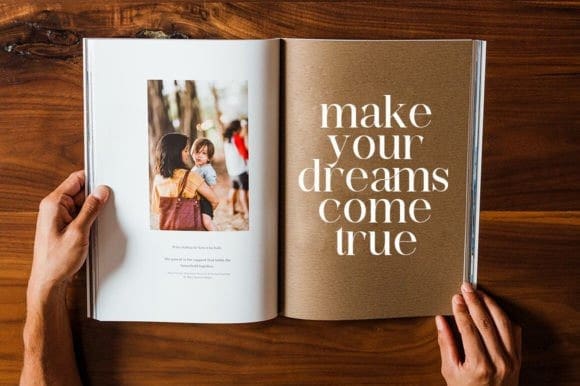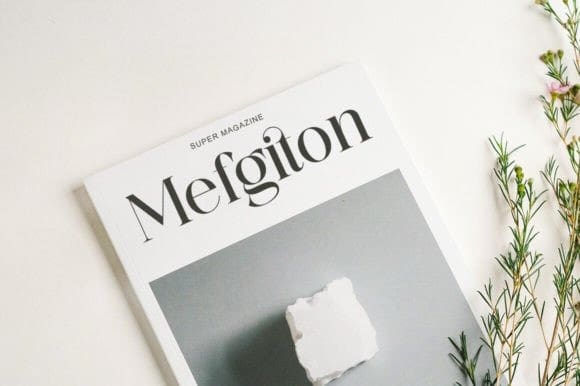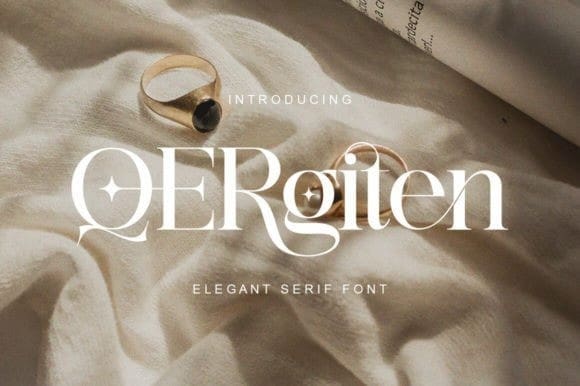
Qergiten Font
Qergiten Font is a serif font packaged in a modern and classy style, complete with access to your OpenType features to access a large selection of alternate letters and ligatures, the choice of letters you like from variations of uppercase and lowercase letters to get a display luxurious and elegant.
This font is perfectly made to be applied especially in logos, and the other various formal forms such as invitations, labels, logos, magazine headers, books, greeting/wedding cards, Clothing Branding, product packaging, fashion, makeup, quotes, stationery, novels, cutting, labels or any type of advertising purpose.